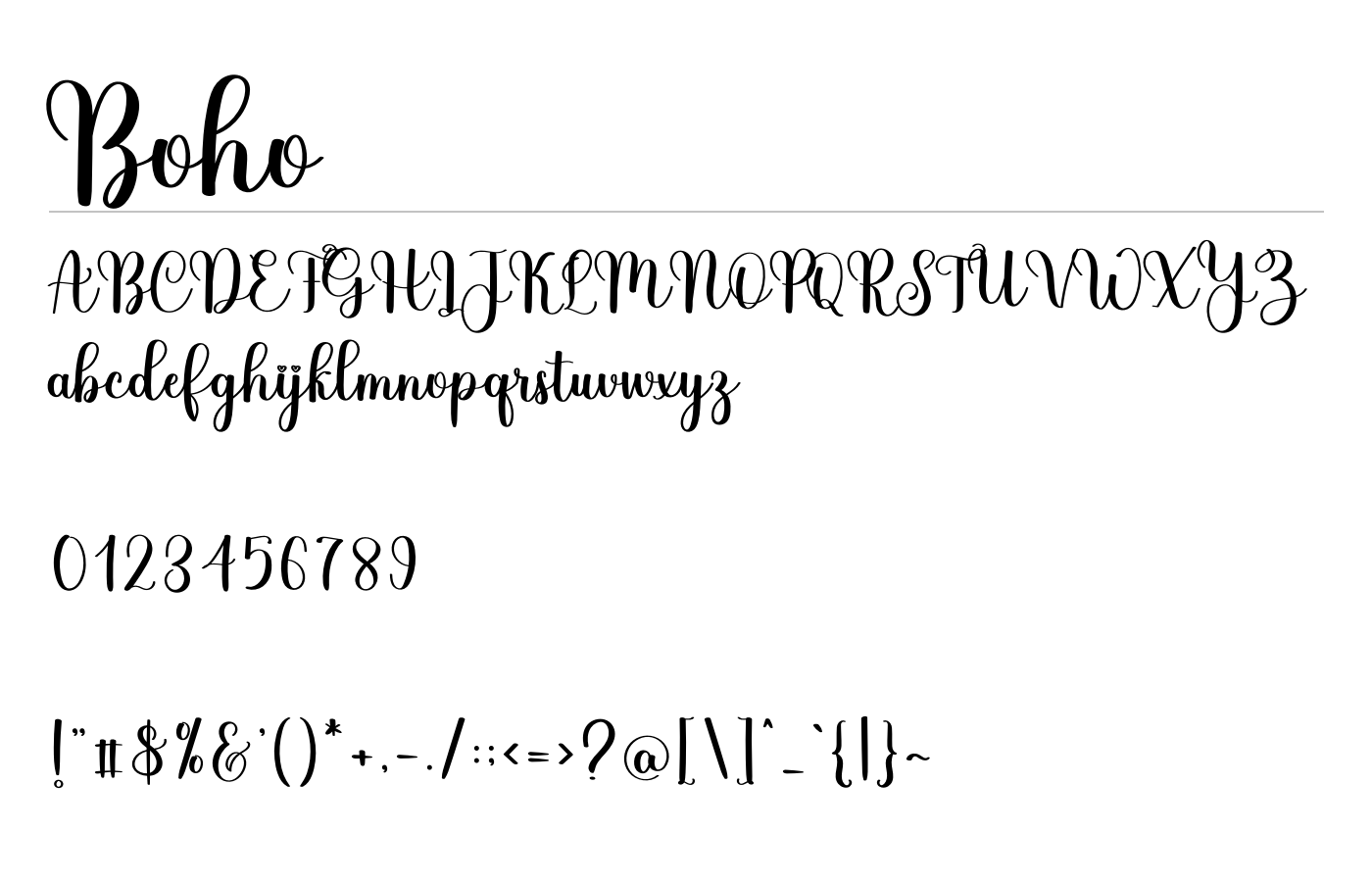
Boho Font is a charming script typeface with elegant, flowing strokes and playful curls that give it a hand-lettered, whimsical appeal. Its medium weight and moderate contrast make it perfect for creative, feminine, and casual branding, invitations, or boutique packaging. This font works best for headlines and decorative text where a personal, artistic touch is desired.
Boho Font
About Boho Font